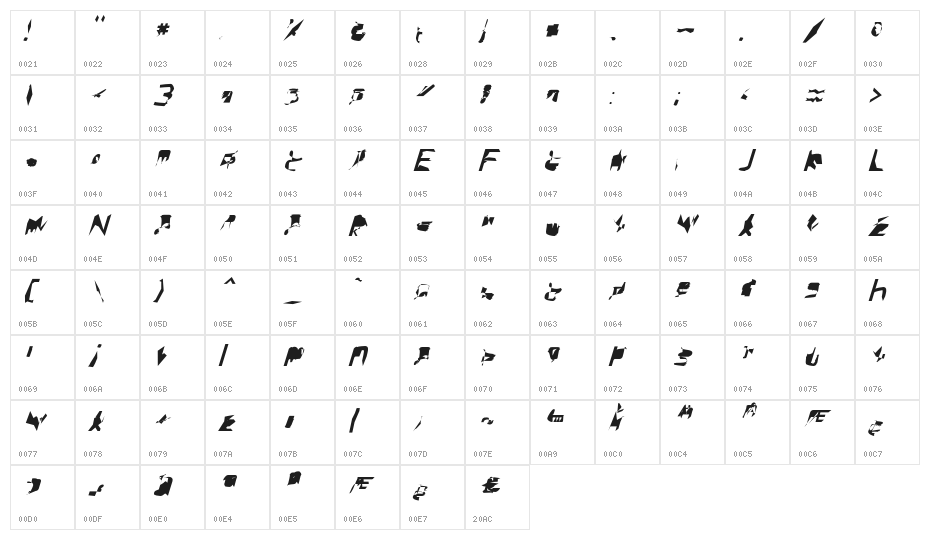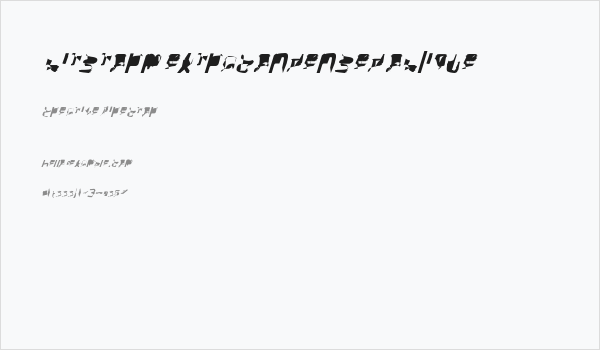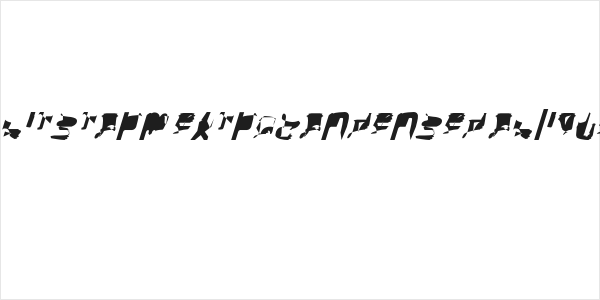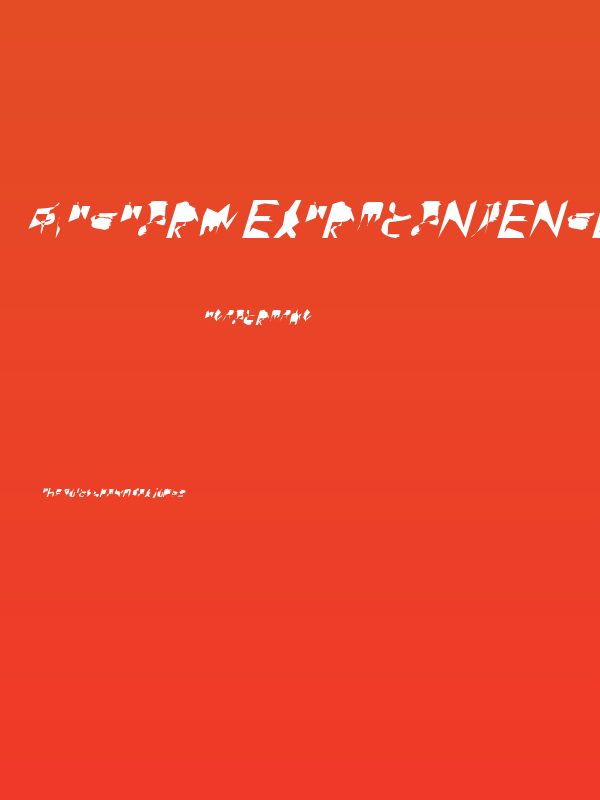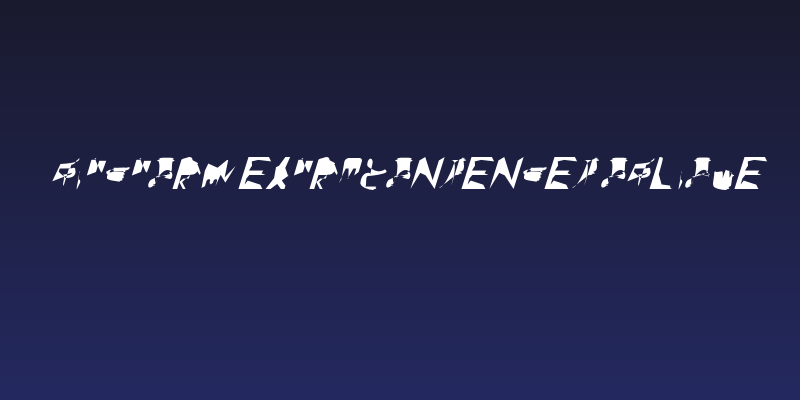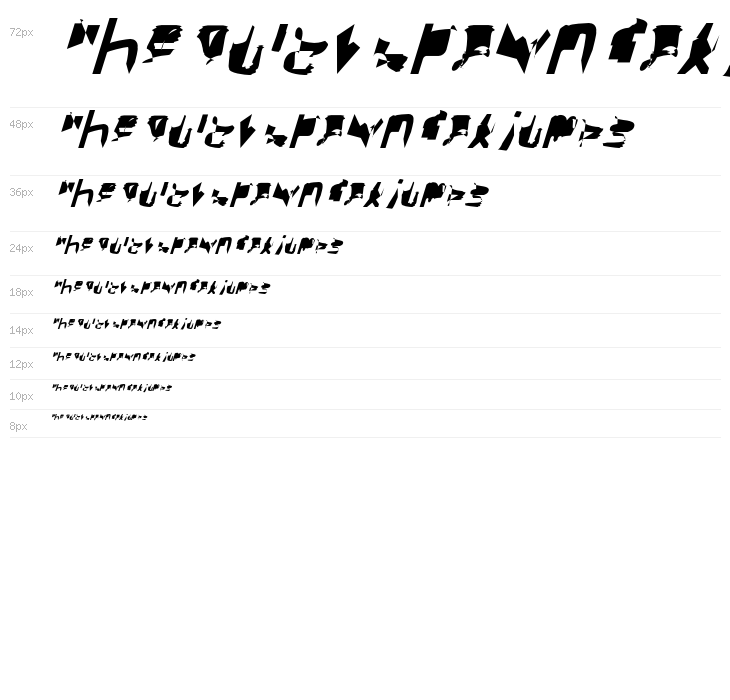
bitstorm extracondensed oblique Font
bitstorm extracondensed oblique Description
This font presents a highly stylized and abstract design, characterized by its fragmented and distorted letterforms. The characters appear as if they are shattered or eroded, giving a dynamic and chaotic visual effect. The overall appearance is oblique, adding a sense of motion and urgency. The strokes are bold and angular, with sharp edges and irregular shapes. This font is not suitable for readability in body text but can make a striking impact in artistic or avant-garde projects. The unique style challenges traditional typography norms, making it ideal for experimental designs.
Overall StyleModern, Abstract
Use CaseLogos, Headlines, Artistic projects
Proposed ProjectsIdeal for experimental designs, album covers, posters, and art installations.